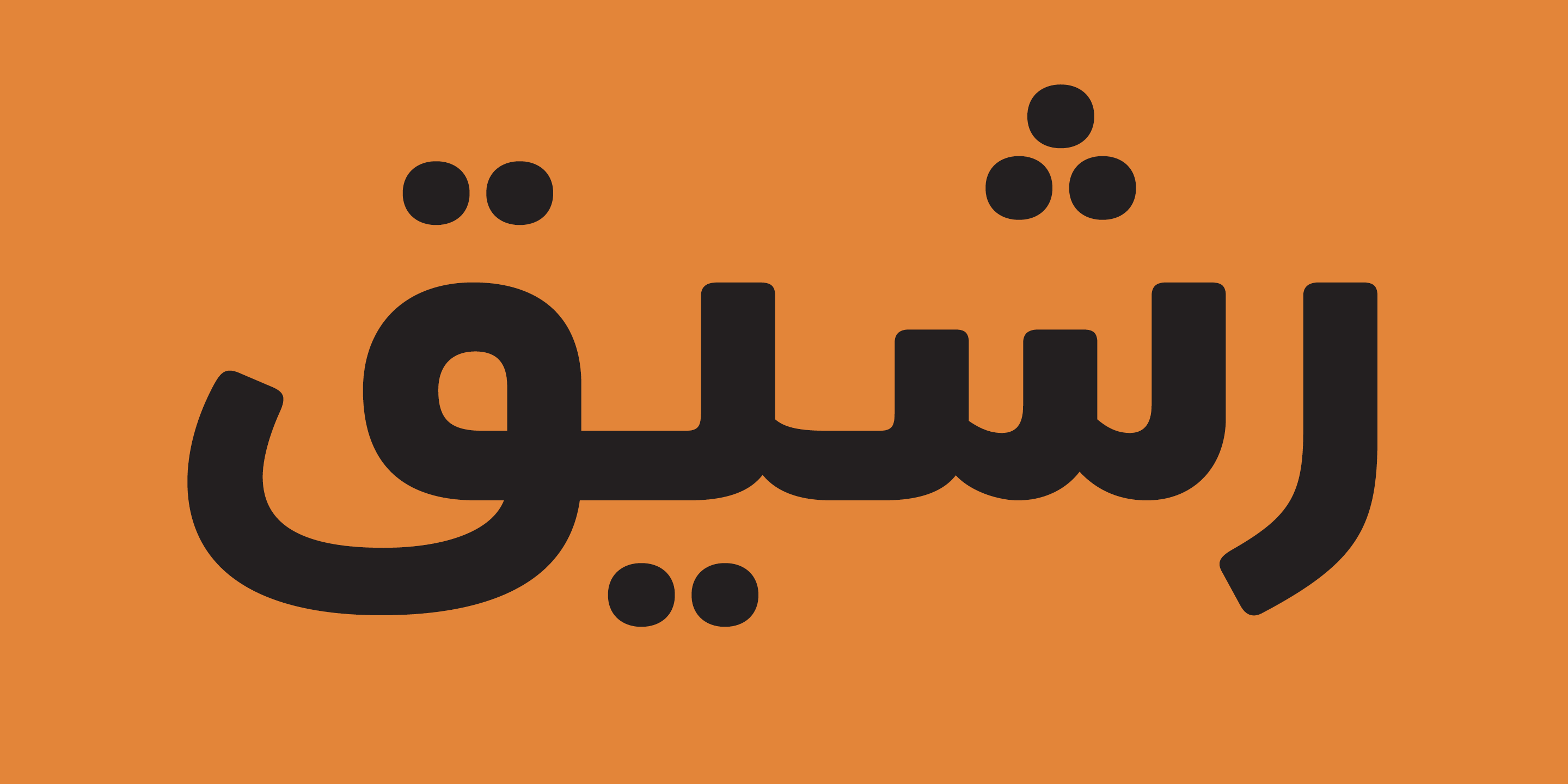
FS Albert Arabic Font is ideal for Middle Eastern corporate branding, Arabic publishing projects, multilingual websites, cultural heritage materials, educational institutions, Islamic art exhibitions, Arabic media publications, international business communications, religious texts, and cross-cultural marketing campaigns. This sophisticated typeface excels in environments where authentic Arabic typography and cultural sensitivity are paramount for effective communication.
What makes FS Albert Arabic Font exciting is its masterful balance of traditional Arabic calligraphic principles with contemporary design sensibilities, creating a typeface that honors cultural heritage while meeting modern functionality requirements. The font features elegantly crafted Arabic letterforms that maintain authentic script characteristics while ensuring exceptional readability across digital and print applications. This harmonious fusion makes it perfect for organizations seeking to communicate respect for Arabic culture while establishing modern, professional credibility.
FS Albert Arabic Font family includes Light, Regular, Medium, Bold, Black, and corresponding variations optimized for Arabic script flow and directionality. Each weight preserves the font's distinctive Arabic aesthetic while offering comprehensive flexibility for creating sophisticated bilingual typographic systems that honor both Arabic and Latin script traditions.
Typography specialists recognize the font's superior implementation of Arabic design principles, including proper contextual letter forms, authentic ligatures, and optimized spacing that respects traditional Arabic aesthetic standards while ensuring contemporary functionality and international compatibility across various platforms.
When implementing FS Albert Arabic Font in design projects, the results consistently demonstrate both cultural authenticity and professional quality. The font's sophisticated personality makes it particularly effective for brands in finance, education, media, and international business where Arabic market credibility and cultural sensitivity are essential for success.
For digital environments, FS Albert Arabic Font renders beautifully across all platforms, maintaining its authentic Arabic character and cultural integrity from mobile interfaces to large-scale digital displays while supporting right-to-left text flow requirements.
Creative agencies frequently recommend FS Albert Arabic Font for clients requiring authentic Arabic typography and cultural sensitivity, where standard fonts cannot capture the desired respect for Arabic heritage and professional communication standards in Middle Eastern markets.